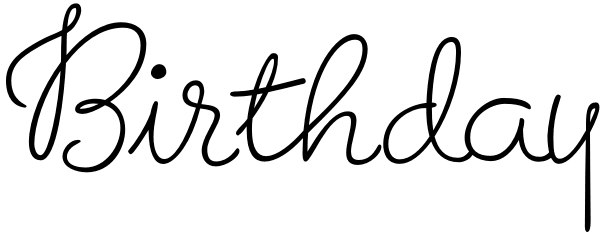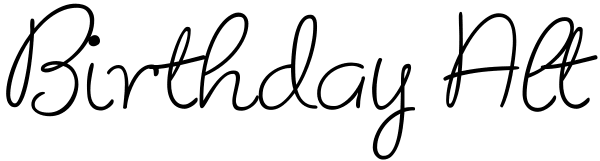
Birthday
What do you imagine the ideal casual invitation font would look like? It has to be cheerful, inviting, legible, creative, and loads of fun. But first and foremost, it has to look like real handwriting. Fonts seeming like real handwriting are always...
Birthday Ligatures Three
Birthday
Birthday Alt
Birthday Ligatures Four
Birthday Ligatures Five
Birthday Ligatures One
Birthday Ligatures Two